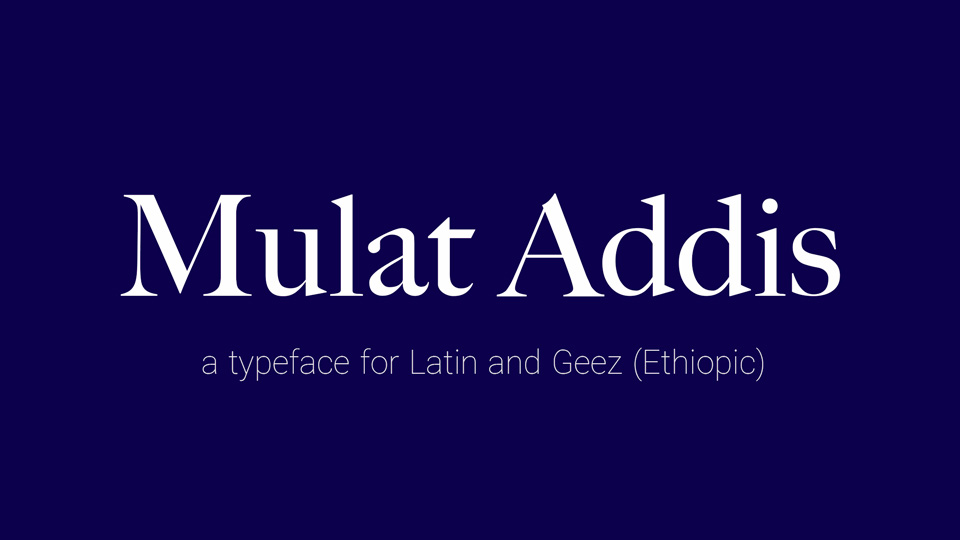
Mulat Addis is a serif font that supports all languages that use the Latin script and Geez scripts. For apps that support ligatures and OpenType features, it introduces capitalization to the Geez (Ethiopic) based languages.